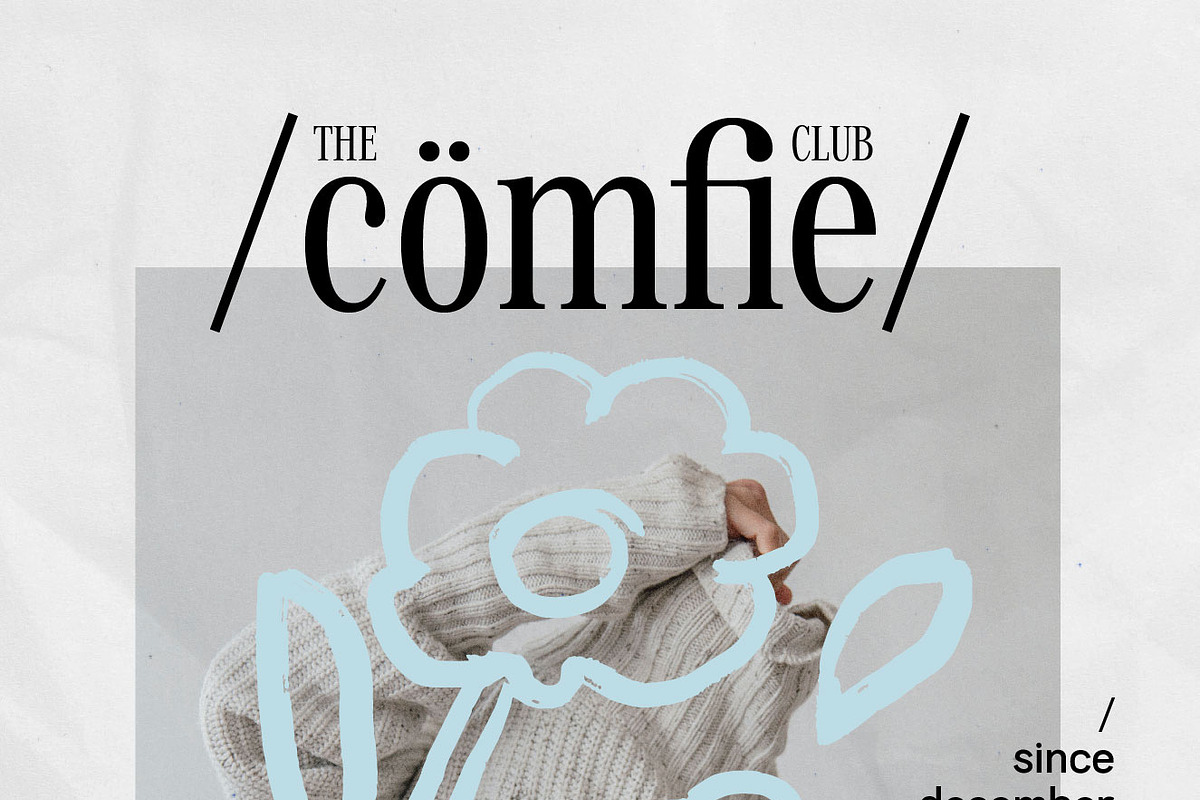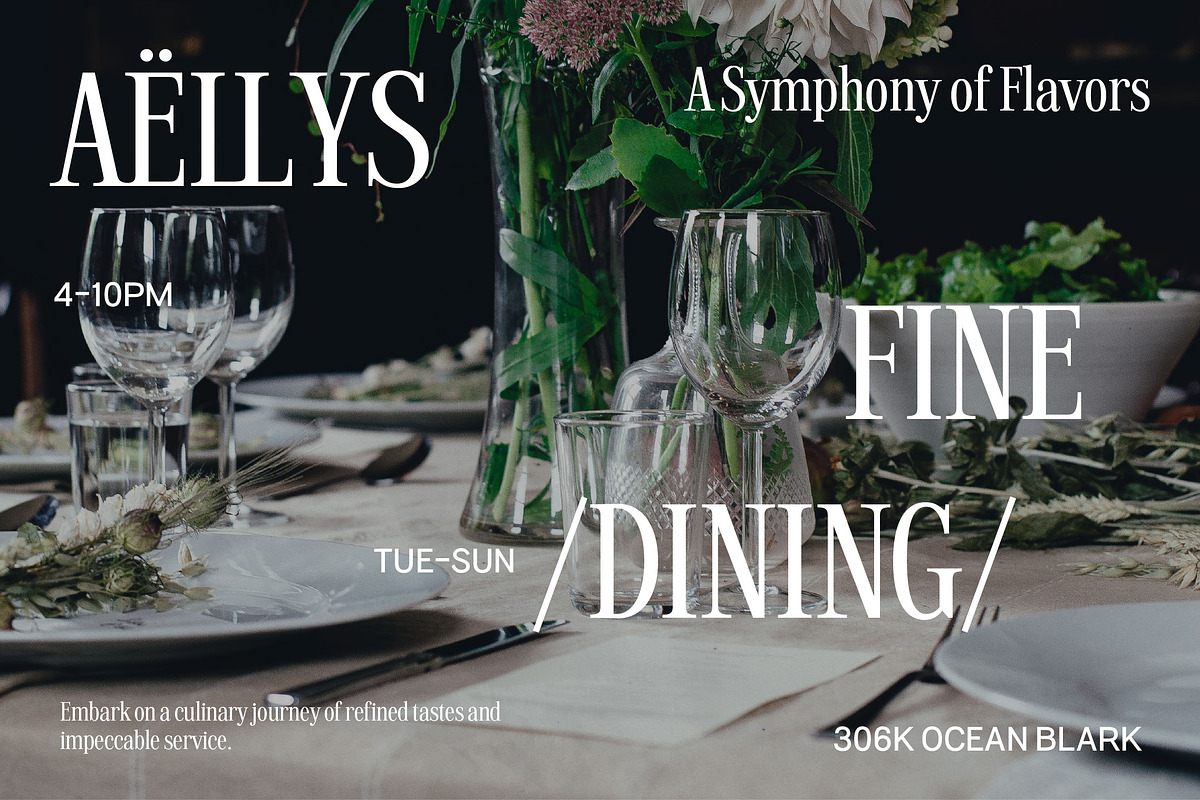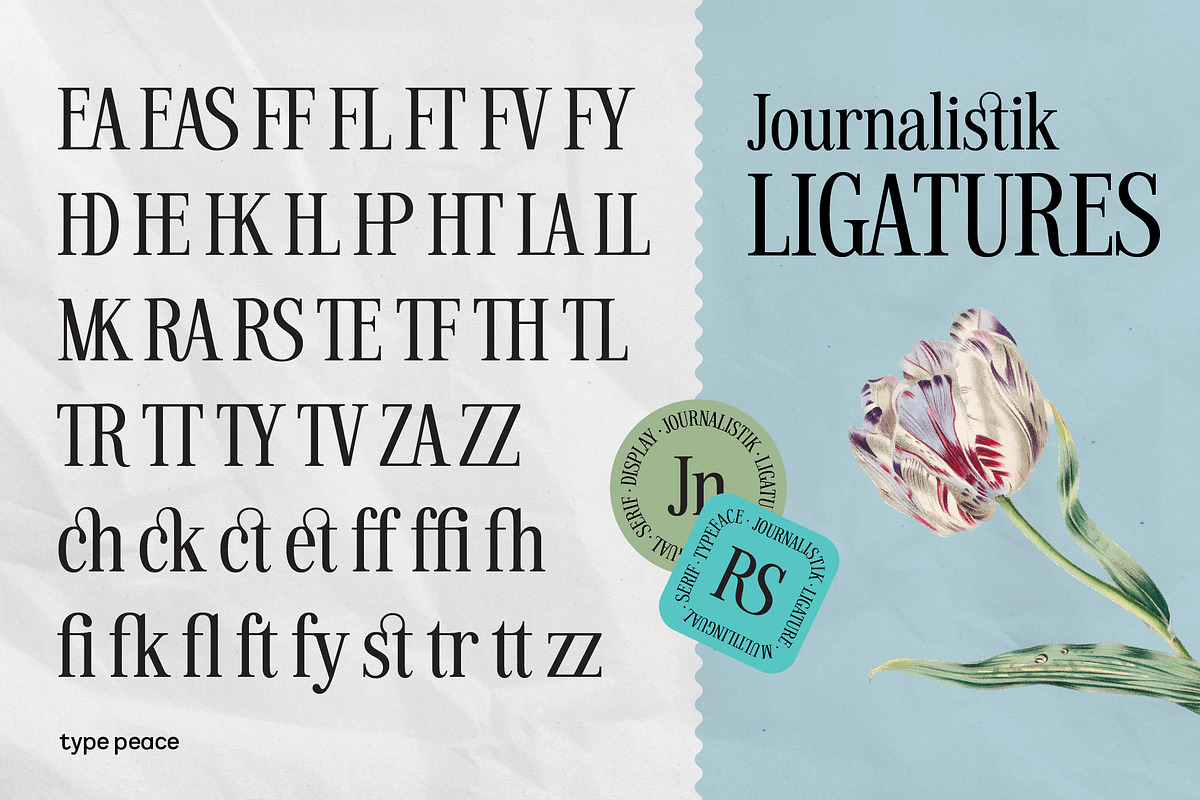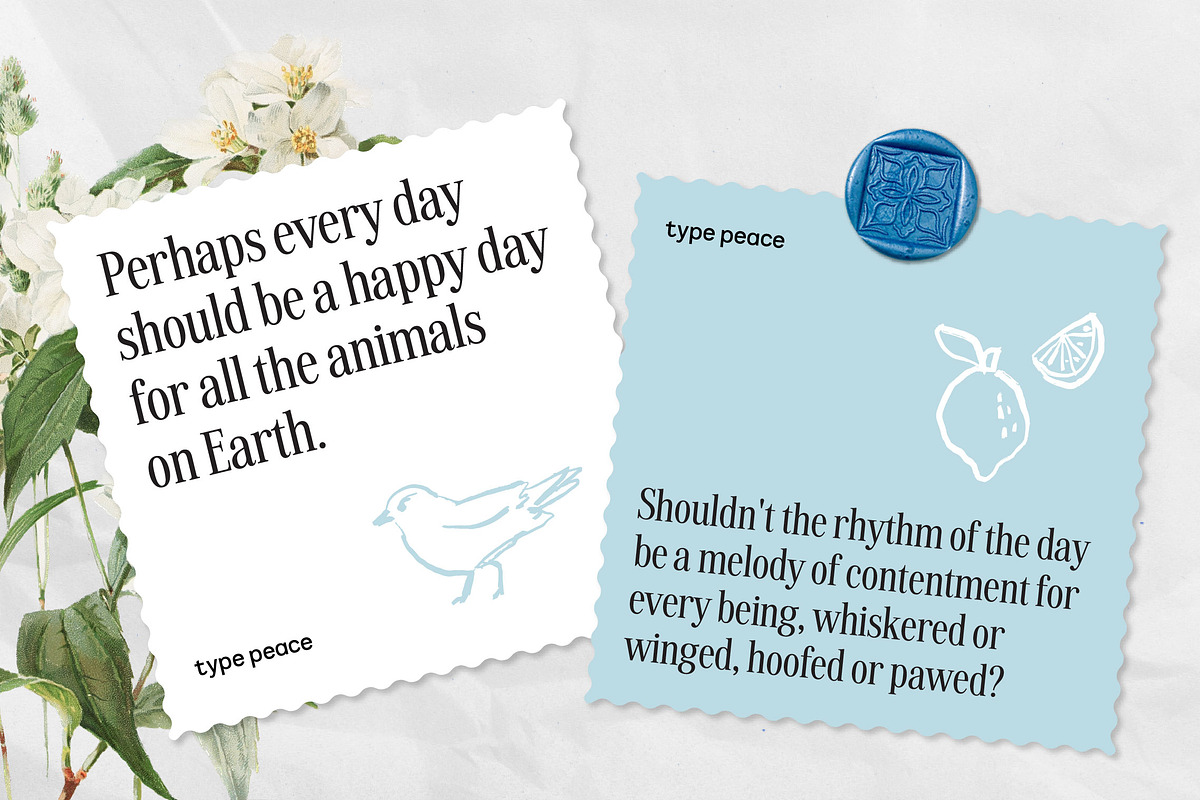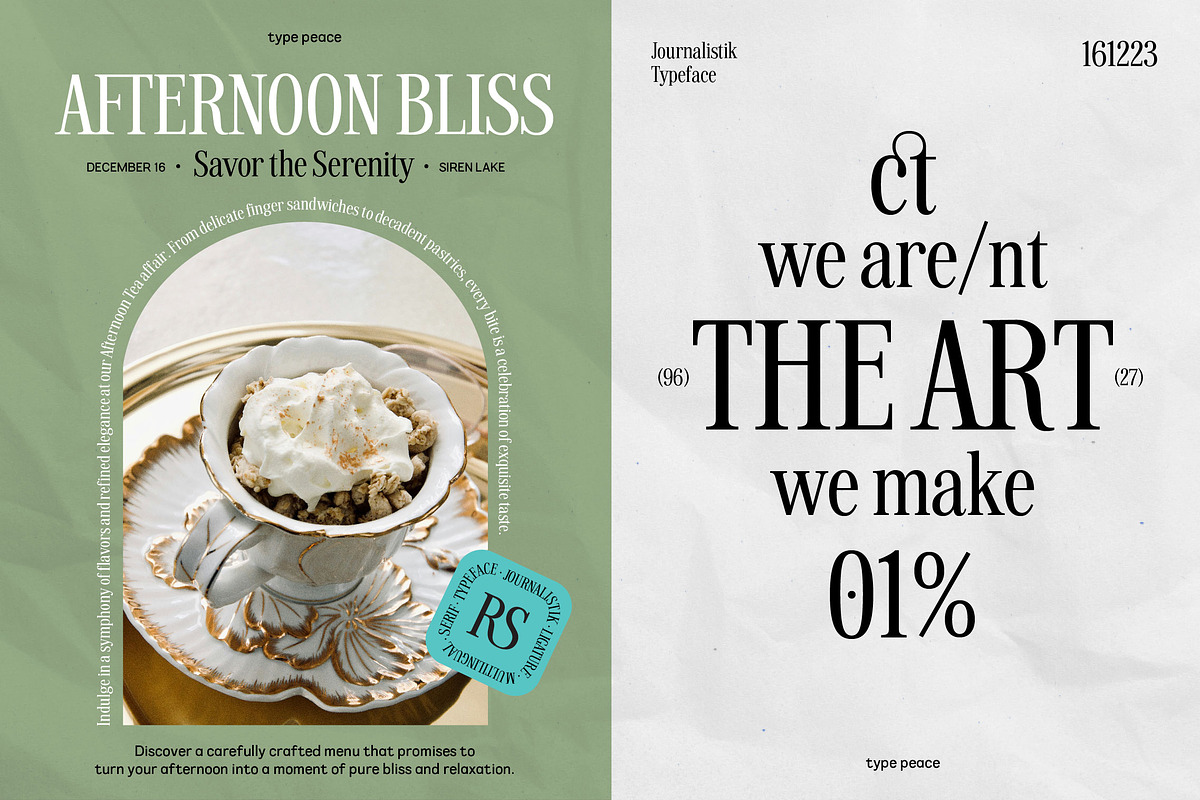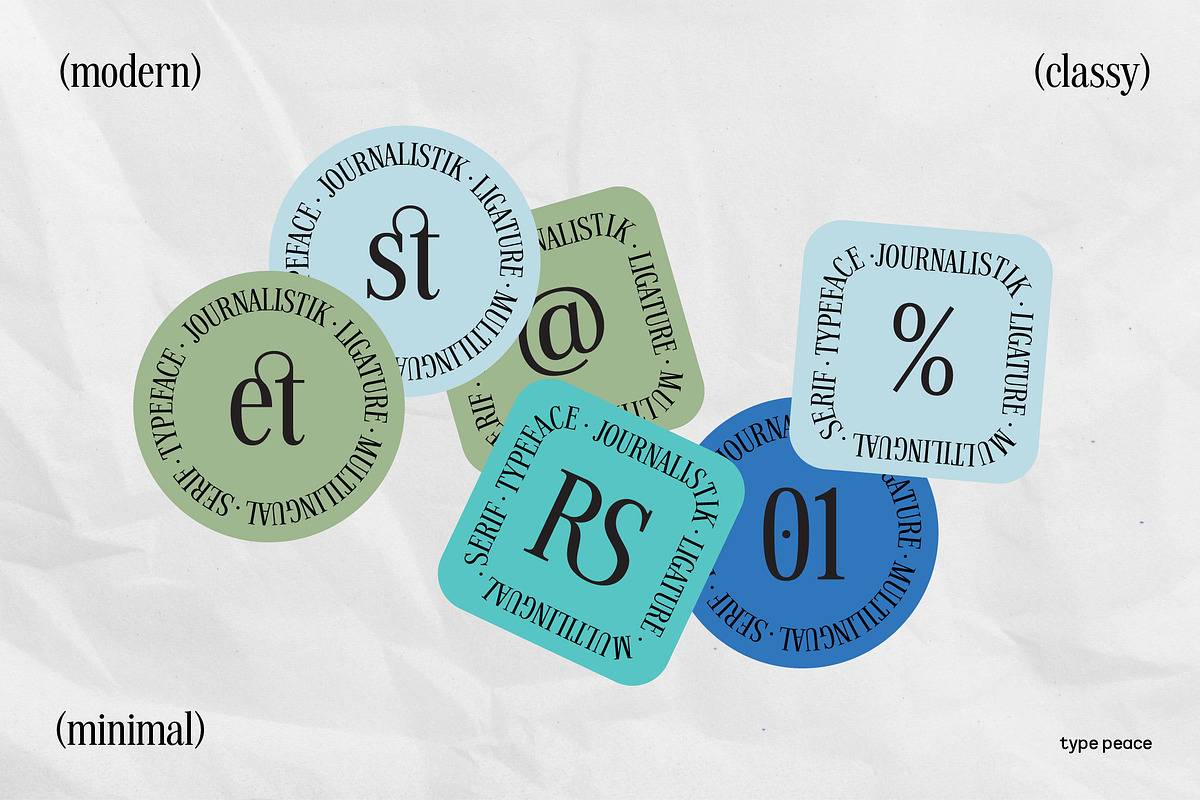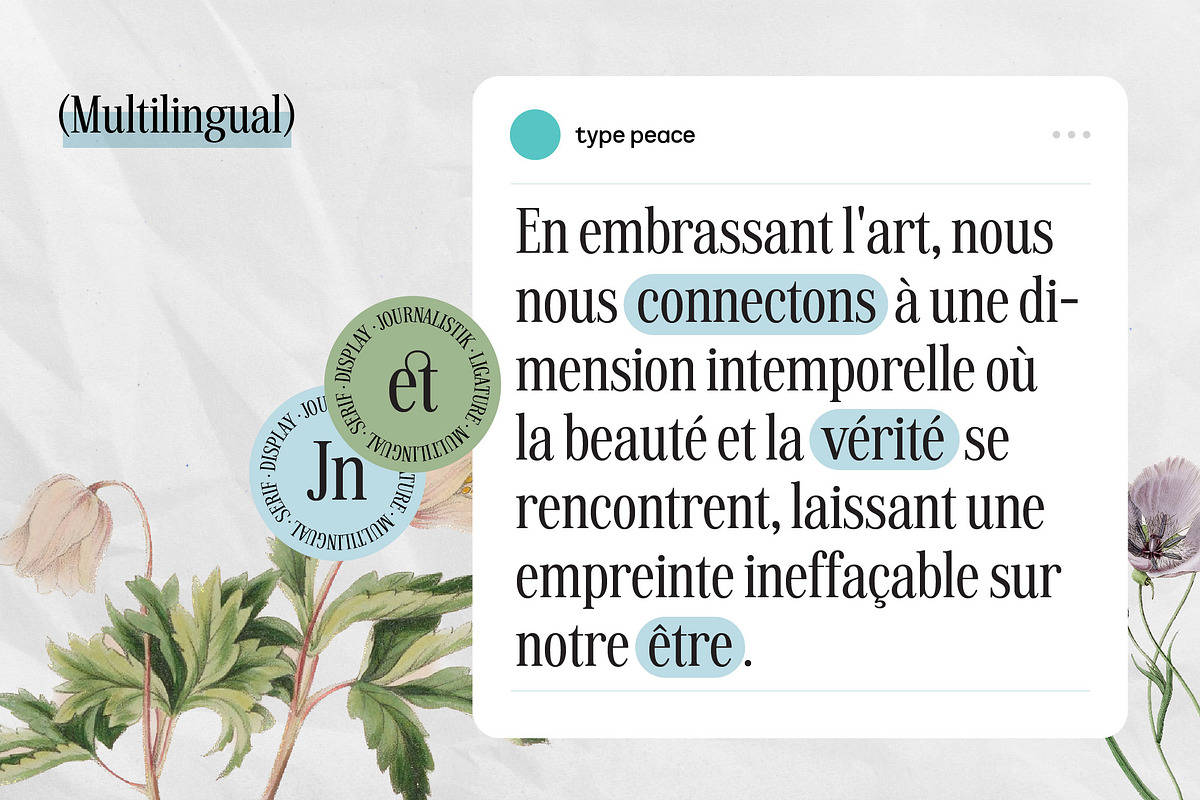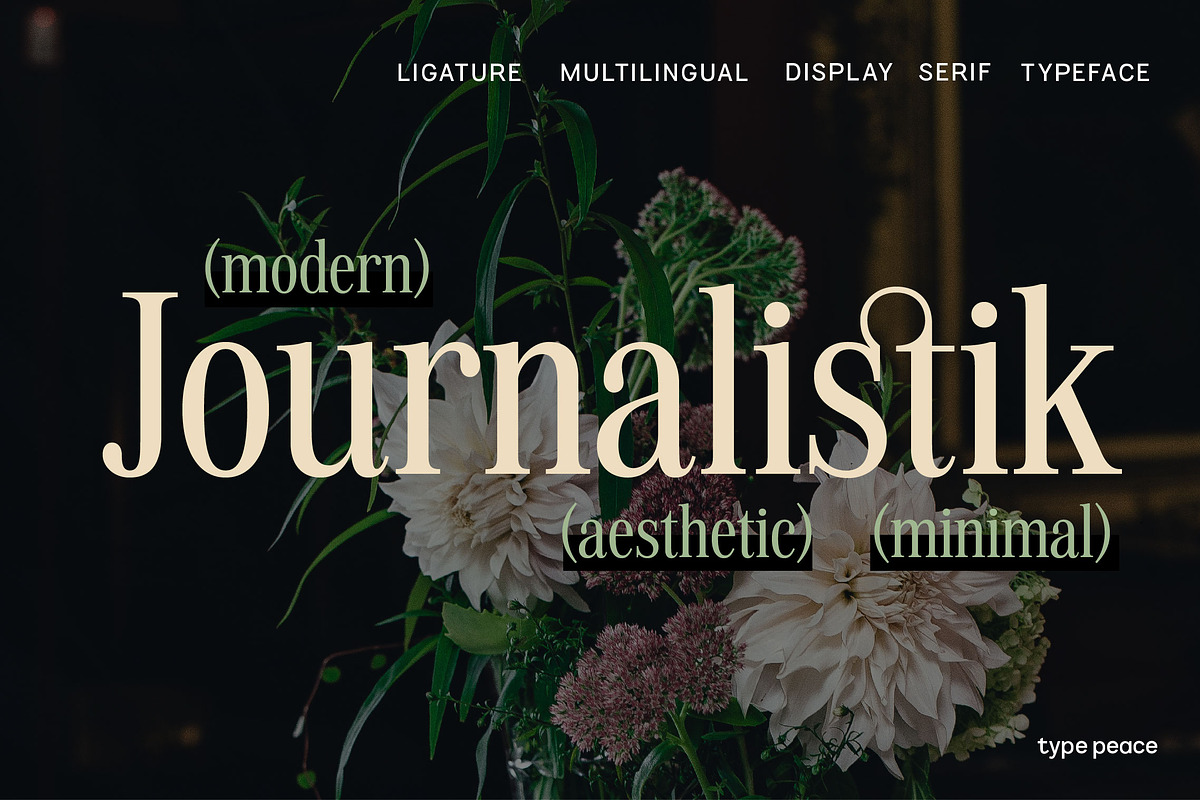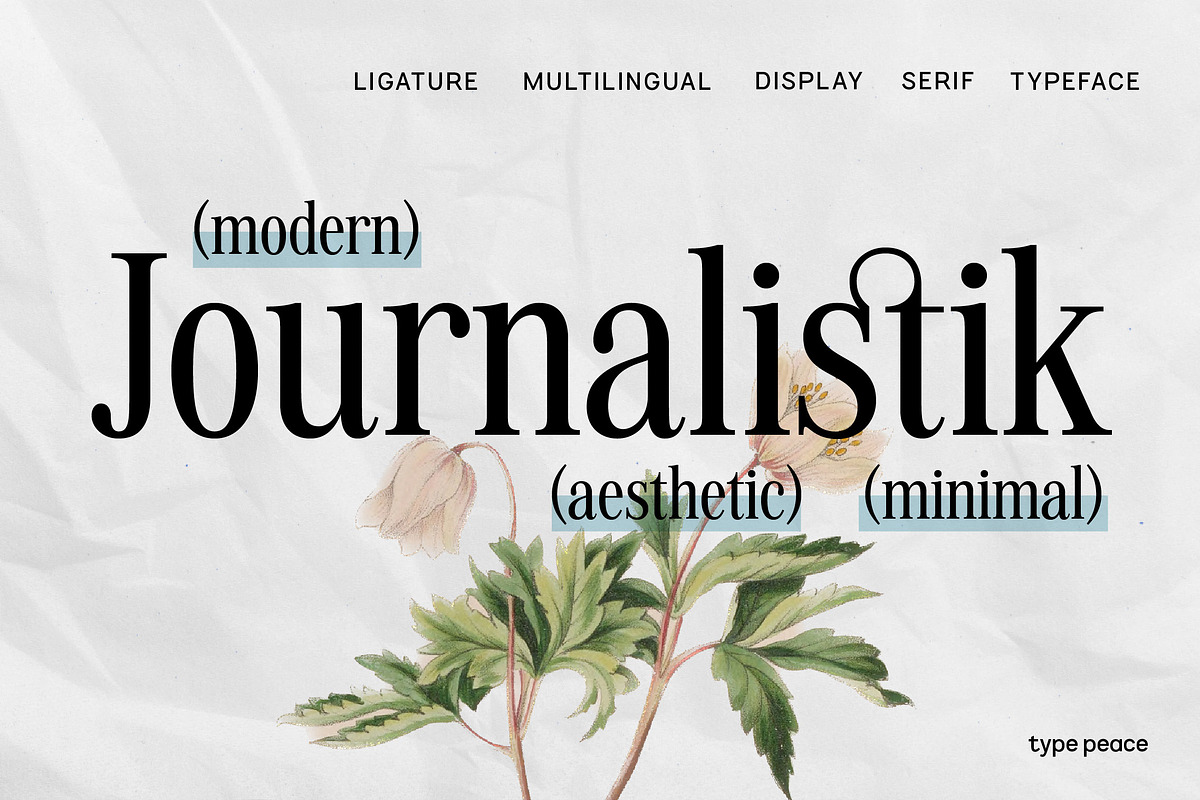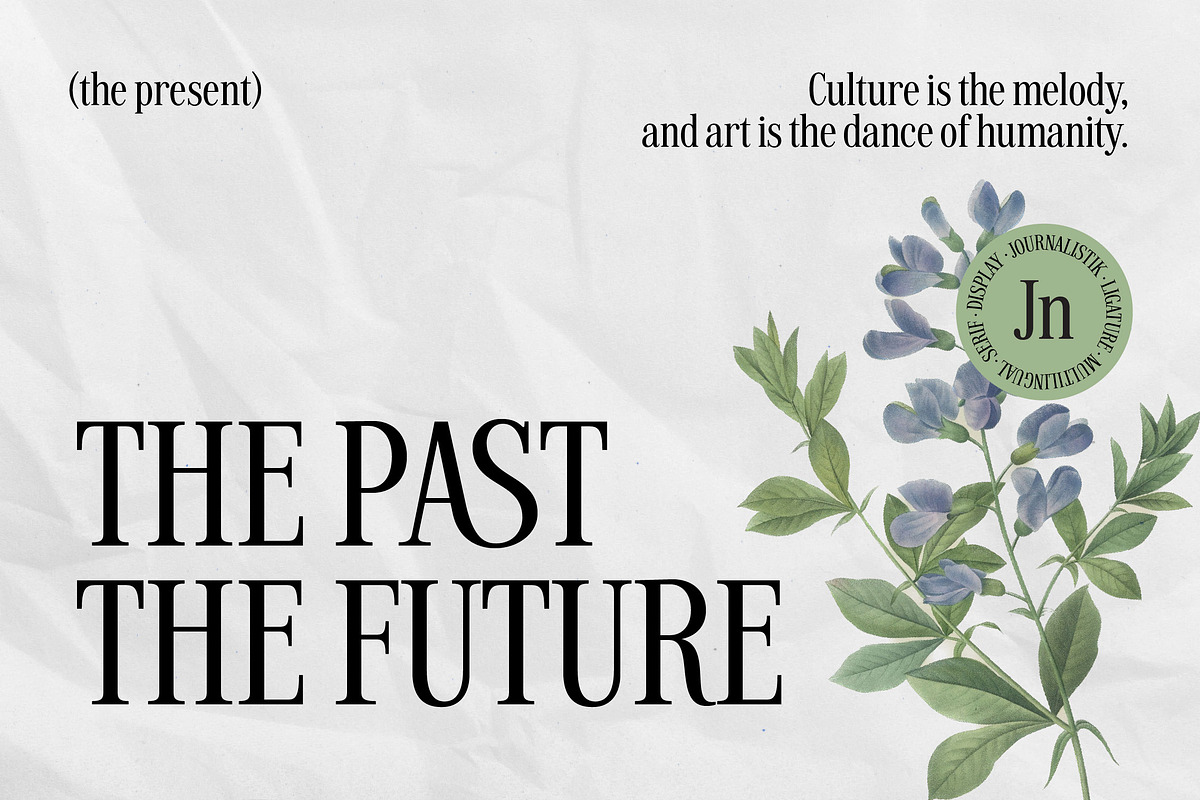
JOURNALISTIK | Multilingual Serif
JOURNALISTIK, a ligature-rich display serif, pays homage to the elegance of old newspaper title typefaces while introducing a fresh, modern twist. Its sleek and minimal design elevates your projects, offering a versatile solution for those who crave both aesthetics and functionality in their typography.
- Uppercase, lowercase, numbers, punctuations and symbols
- Craft logos and brand identities that exude both modernity and timeless sophistication
- Infuse your event invitations with a touch of elegance
- Create editorial layouts that exude class and sophistication
- Elevate your social media presence with Journalistik's clean and modern look, ensuring your message is delivered with style and impact